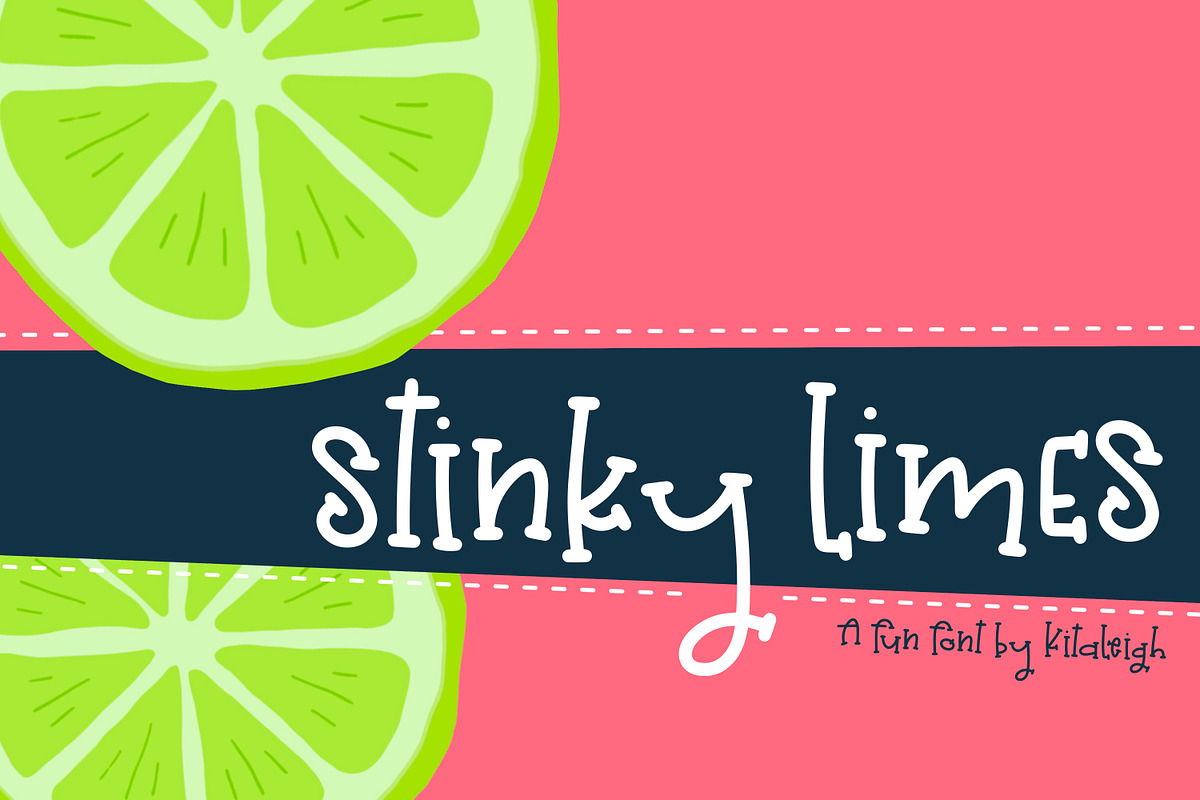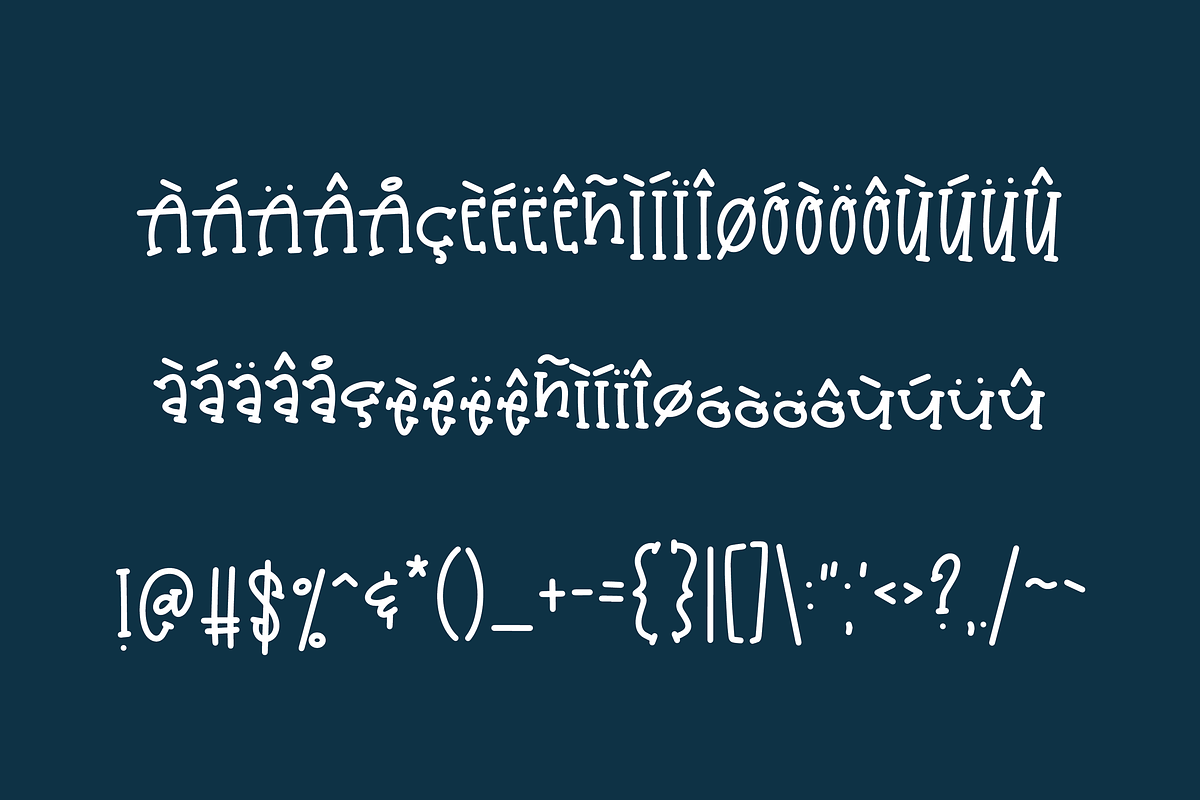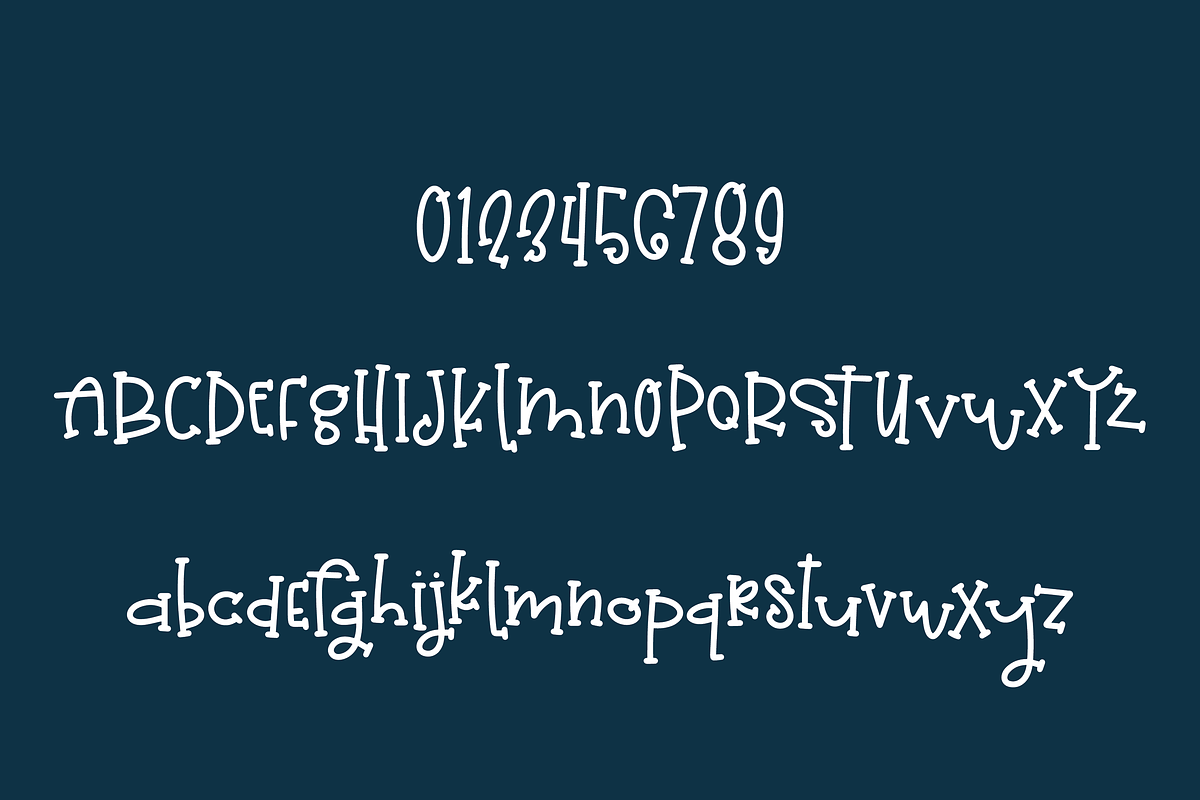
Stinky Limes
Give your design a creative and unique edge with this charming hand-lettered font! Perfect for adding personality to any project, this quirky font will give your work an extra dose of character.